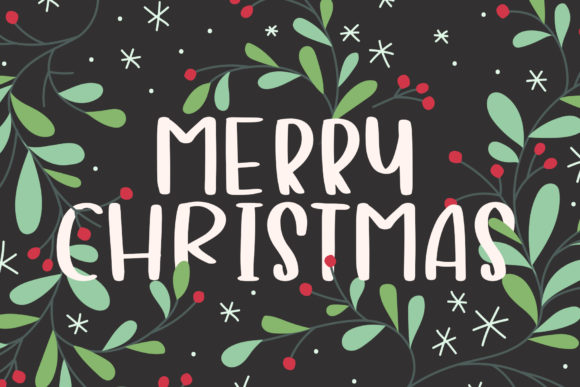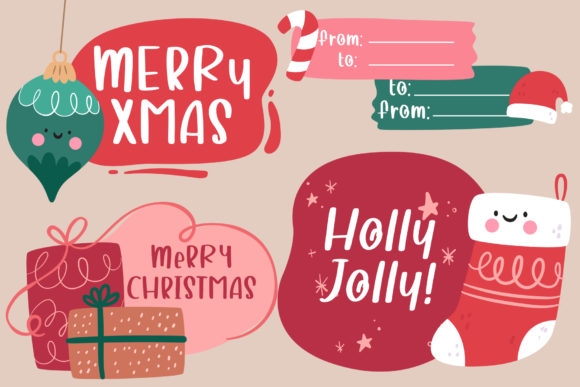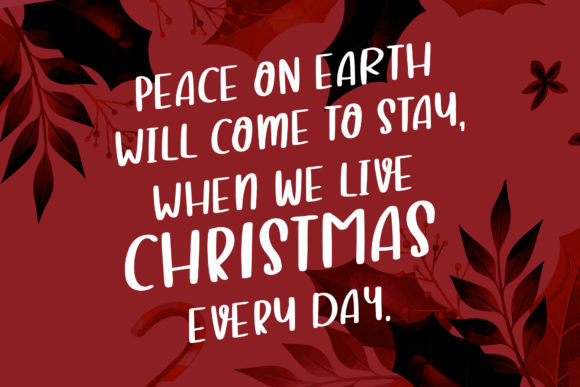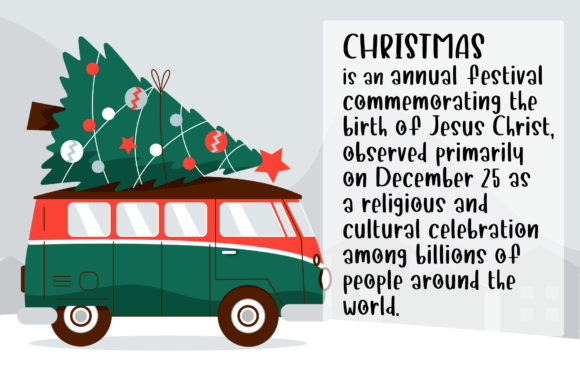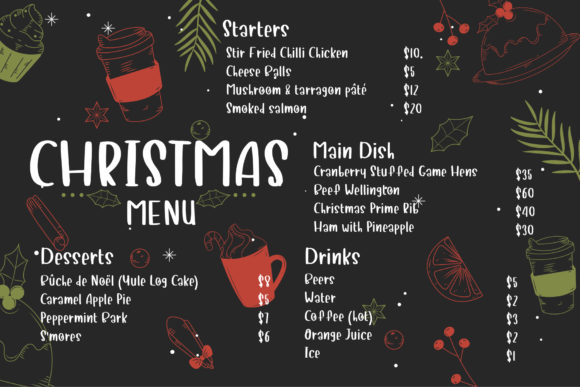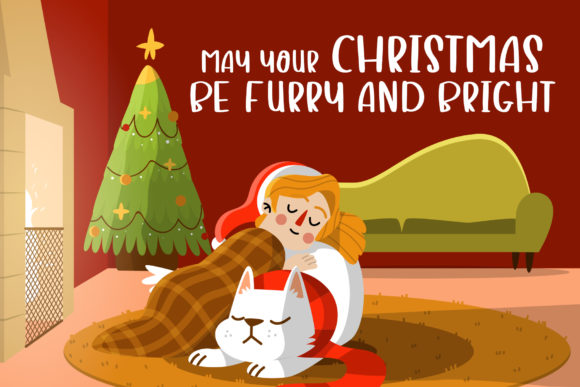
The Joy of Handwritten Typography
Have you ever stumbled upon a font that sparks your creativity and brings a smile to your face? For designers, finding the perfect font can be a game-changer. It’s that moment when you know you’ve discovered something special, and your design just comes alive. For me, that moment came when I discovered the Casper City Font.
This playful and cartoon-like handwritten font is a designer’s dream come true. With its versatility and charm, Casper City Font is perfect for any branding, product packaging, invitation, quote, t-shirt, label, poster, or logo you wish to develop. Its unique character makes it stand out from the crowd, and its suitability for various design projects makes it a valuable asset for designers.
Casper City Font Key Features
- Font Family: Casper City Font is a sans-serif typeface, designed to convey a sense of friendliness and approachability.
- Font Size: The font comes in multiple weights, ranging from 100 to 900, allowing for flexibility in design and typography.
- Unique Characteristics: The font features a distinctive rounded edge and subtle curves, giving it a modern and friendly feel.
Casper City Font Review
Overall, I think the Casper City Font is a solid choice for any project. Here are some of its strengths:
- ✨ Unique and elegant design: The font’s aesthetic is reminiscent of old-world charm, making it perfect for projects that need a touch of sophistication.
- ✨ Highly legible: Even at smaller font sizes, the Casper City Font remains clear and easy to read.
- ✨ Versatile: The font works well in a variety of settings, from formal documents to creative projects.
However, I do have some reservations:
- ⚠️ Limited character set: The font’s character set is not as comprehensive as some other fonts, which may limit its use in certain projects.
- ⚠️ Not ideal for small text: While the font is highly legible, it can appear somewhat clumsy at very small font sizes.
Overall, I think the Casper City Font is a great choice for projects that require a touch of elegance and sophistication. While it may have some limitations, its unique design and high legibility make it a solid choice for a wide range of applications.
The Casper City Font is ideal for use in designs that require a clean, modern look. It is commonly used in branding, advertising, and digital media. To get the most out of the font, use it sparingly and in combination with other fonts to create visual interest.
Alternatives to Casper City Font
Lato is a modern sans-serif font designed for digital use. It is clean, elegant, and highly legible. Lato is ideal for use in body text, headings, and titles where you want a clear and sophisticated look. Lato is more versatile and has a wider range of weights compared to Casper City Font.
Open Sans is a popular sans-serif font that is highly legible and versatile. It is designed for use in digital media and is suitable for a wide range of applications, from body text to headings and titles. Open Sans is more geometric and modern compared to Casper City Font, making it a great choice for modern designs.
Arimo Font
Arimo is a sans-serif font designed for digital use. It is clean, elegant, and highly legible, making it ideal for use in body text, headings, and titles. Arimo is more condensed compared to Casper City Font, making it a great choice for use in smaller spaces or for creating a sense of urgency.
Montserrat is a sans-serif font designed for use in digital media. It is clean, elegant, and highly legible, making it ideal for use in body text, headings, and titles. Montserrat is more geometric and modern compared to Casper City Font, making it a great choice for modern designs and urban themes.
Q: What is the recommended font size and line height for the Casper City Font?
The recommended font size for the Casper City Font is between 10pt and 24pt, depending on the application and the desired level of readability. The recommended line height is 1.2 to 1.5 times the font size, which will help to improve readability and make the text more visually appealing.